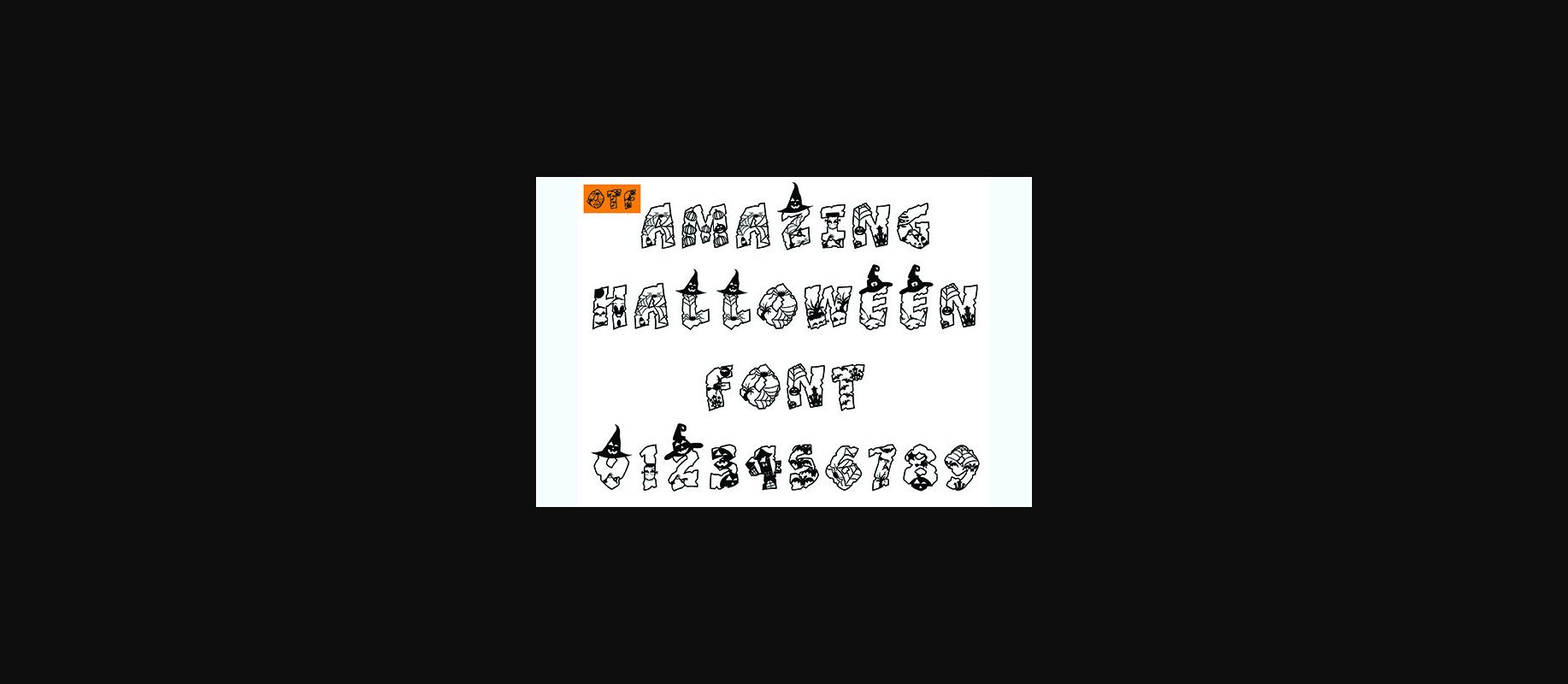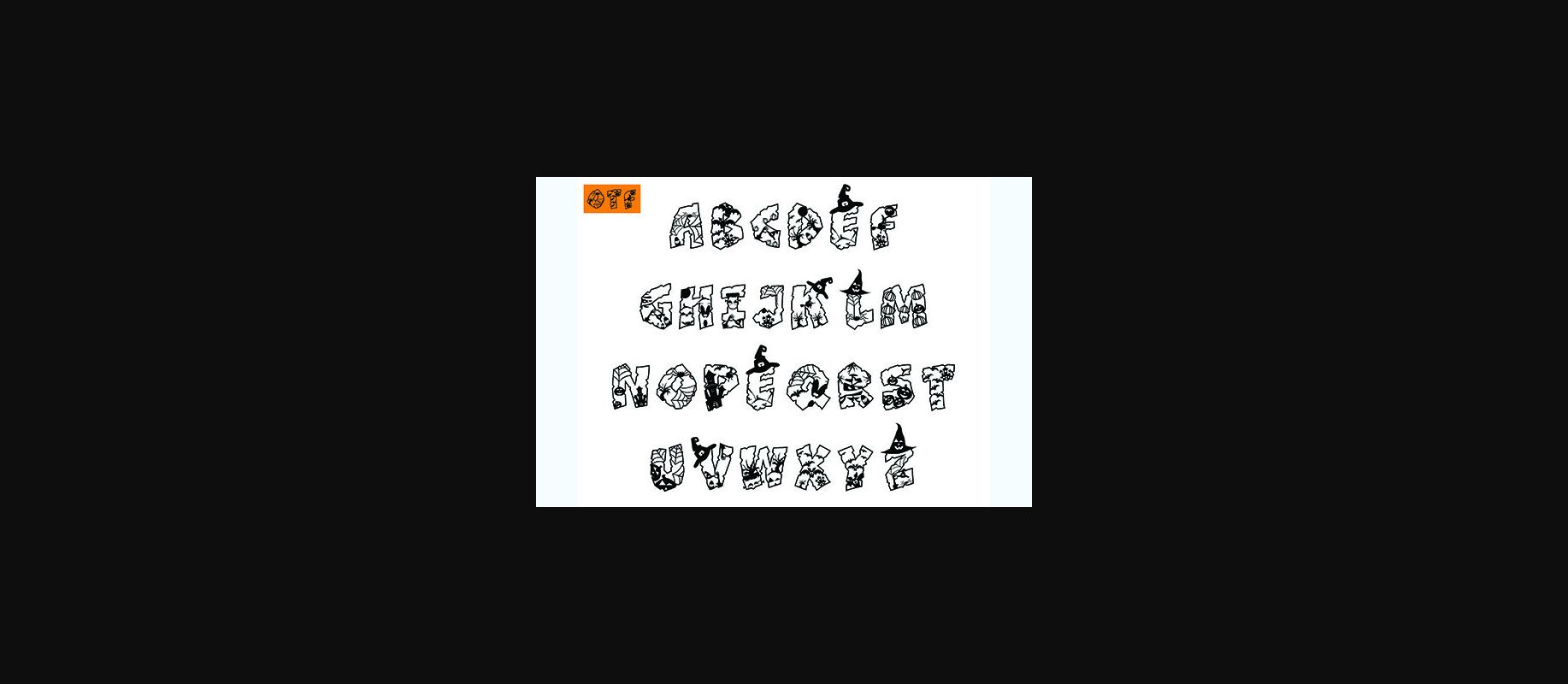
Amazing Halloween is a cool decorative font. This adaptable font will look great on a variety of design ideas. It will add a fun and friendly touch to each of your projects!